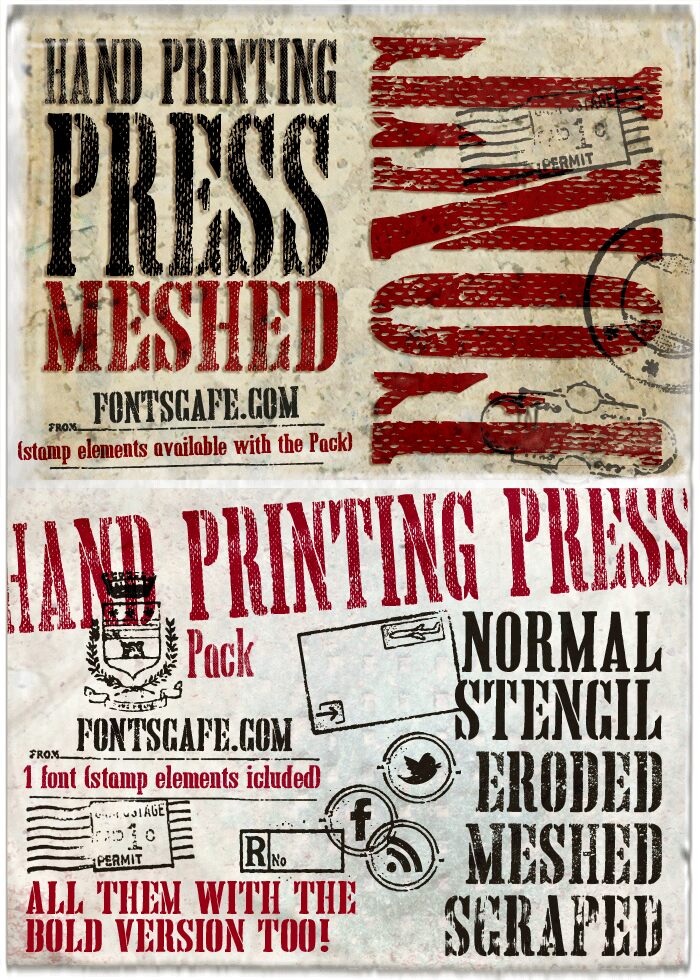
Hand Printing Press Meshed from FontsCafe is a free eroded Western display font with tall, condensed letters and broad slab serifs. Its uneven ink resembles worn wood type, with scratches and crosshatching cutting through the strokes. The narrow proportions keep the lettering forceful rather than bulky.
Music posters gain an old-handbill grit. The same battered print suits rustic food labels and drink packaging. Across these uses, the scratched surface resembles a physical impression, not clean digital lettering.